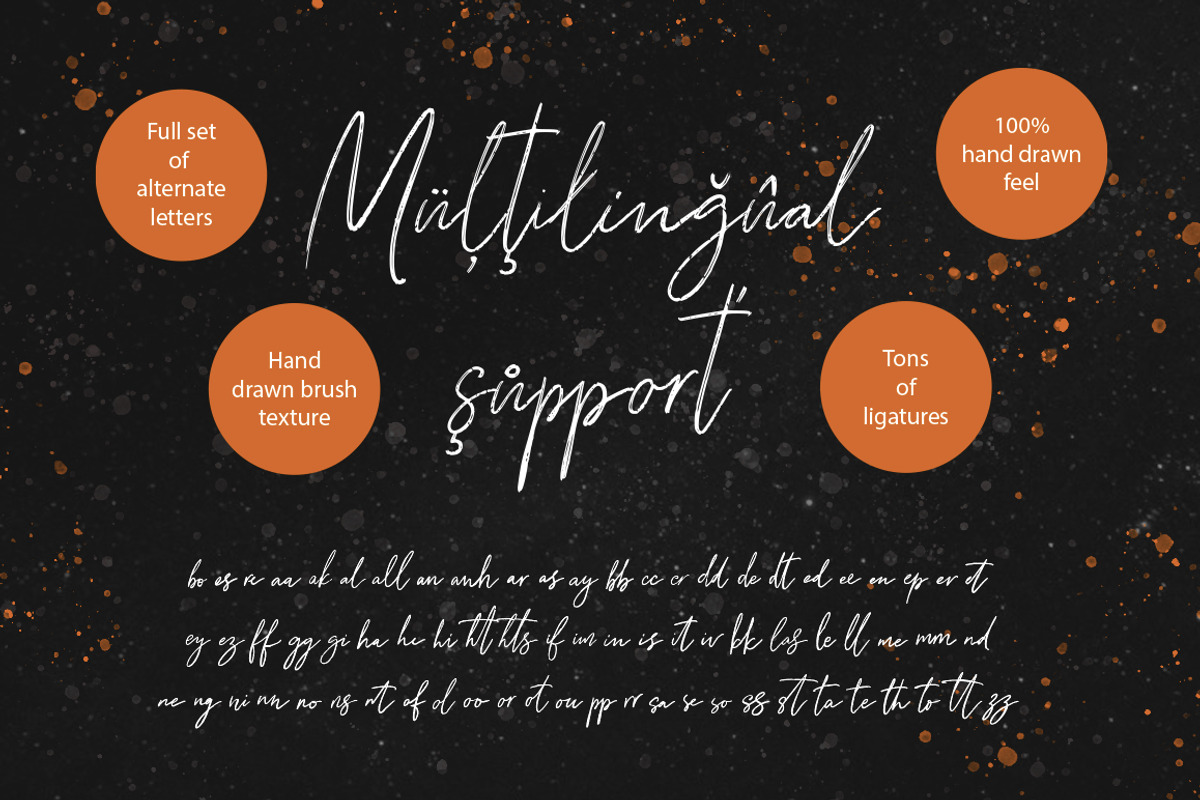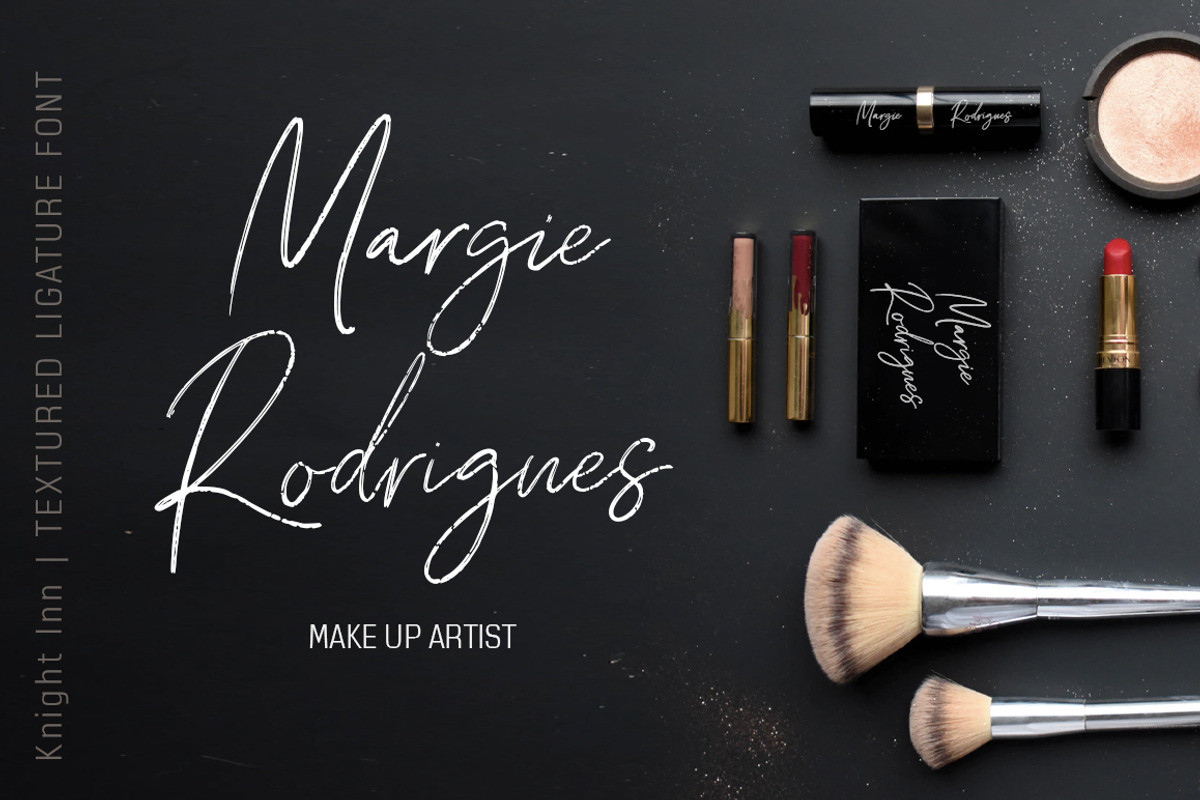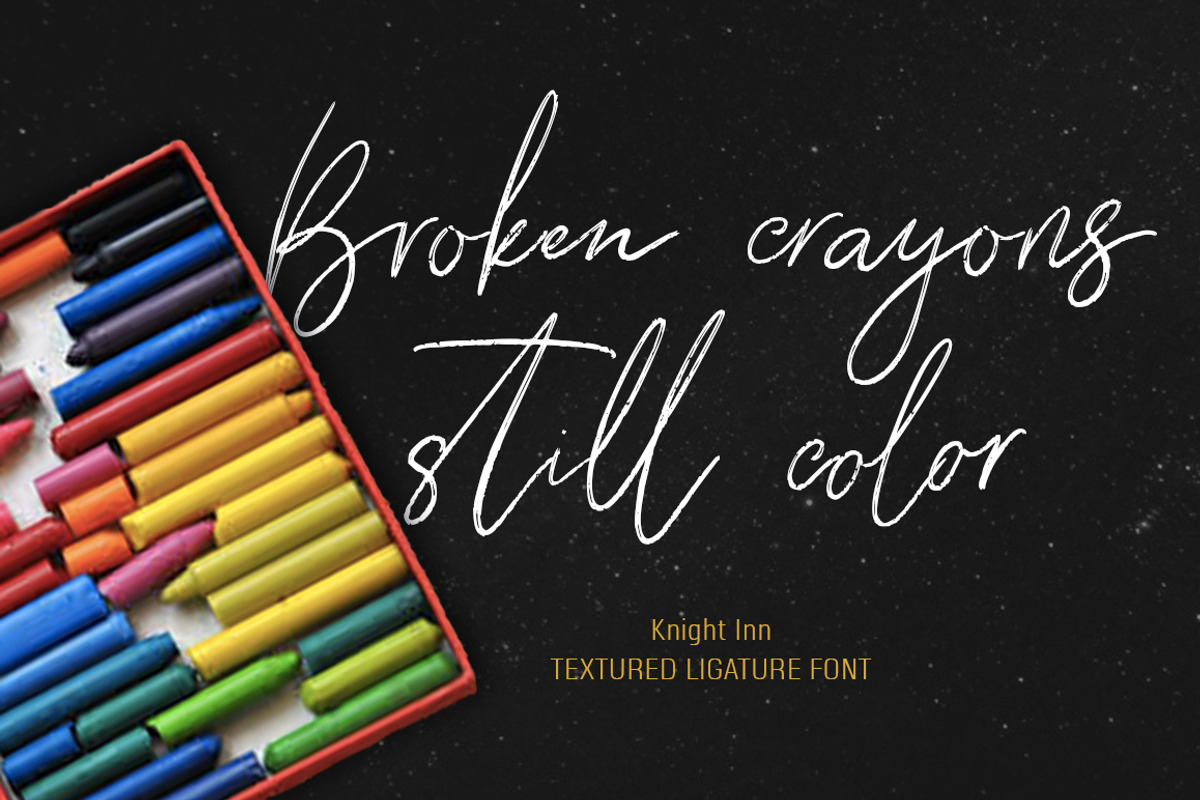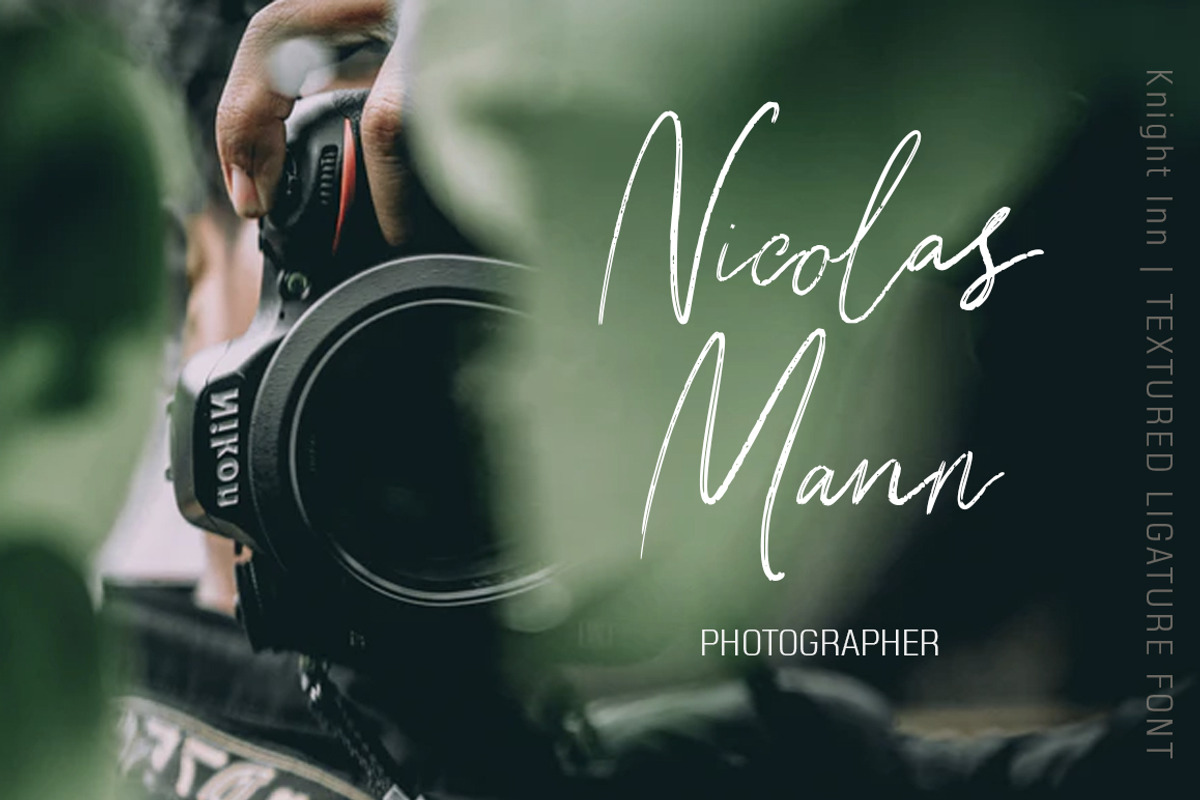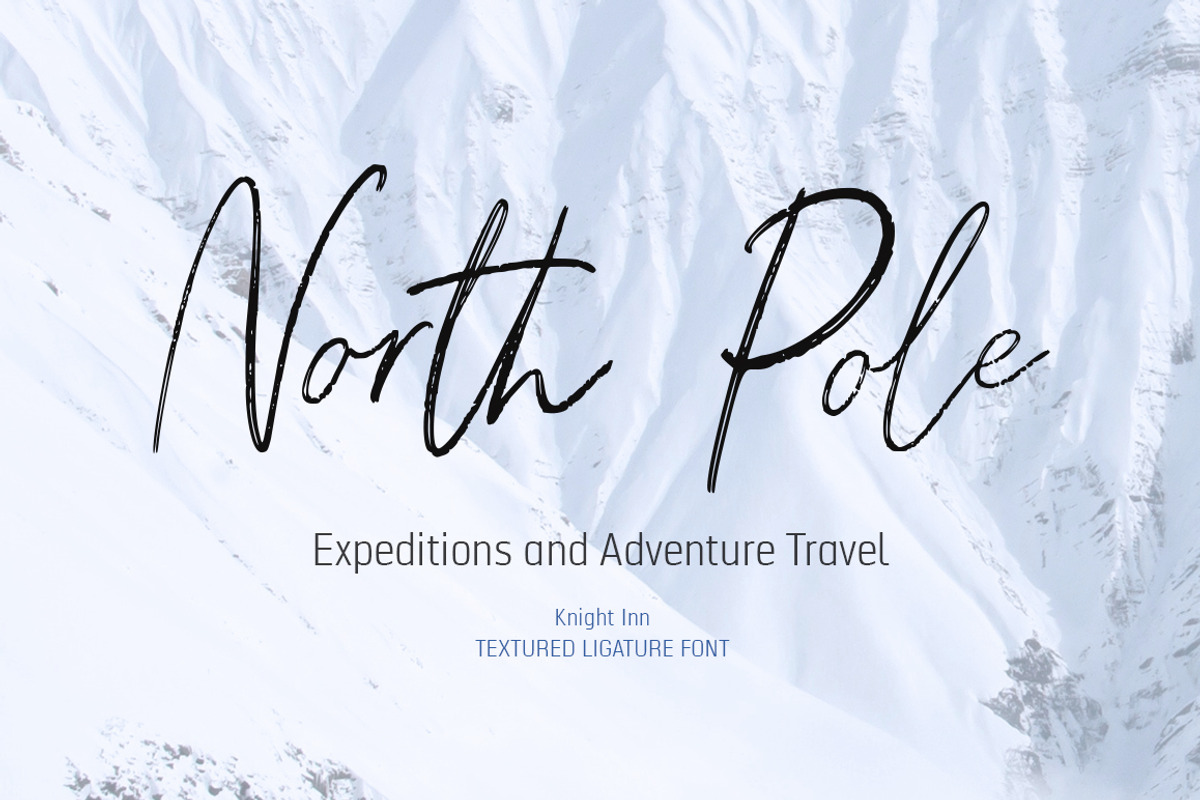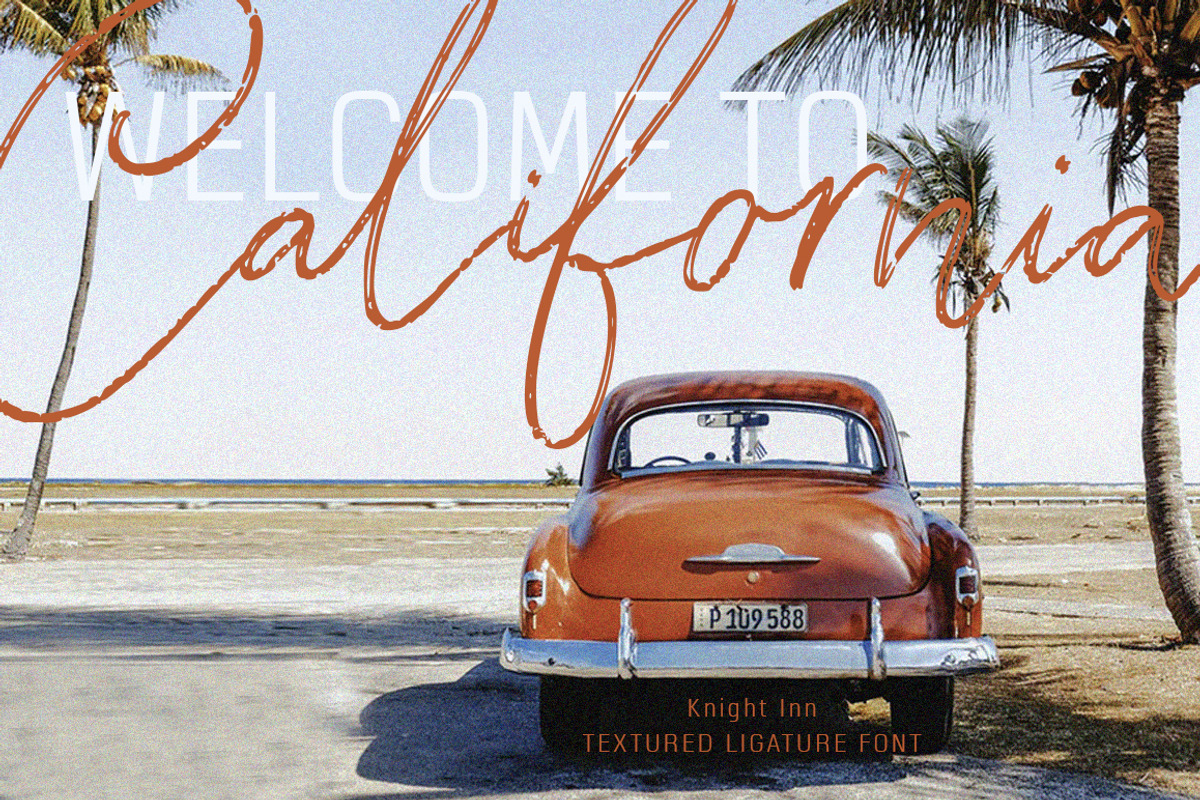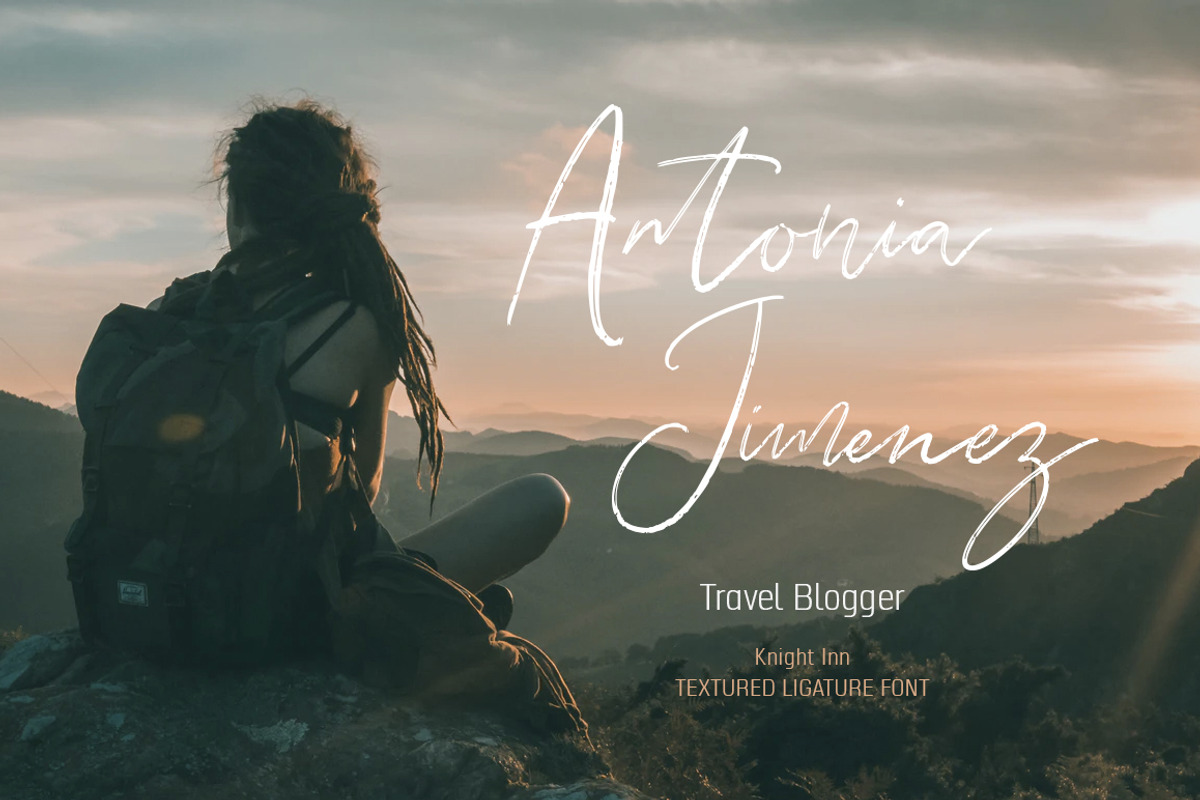
Knights Inn. Textured brush font.
Introducing my hand drawn textured brush font with tons of ligatures & full set of alternate letters – Knights Inn.
Knights Inn is a casual hand drawn font, this font perfect for logo, invitation, stationery, wedding designs, social media posts, advertisements, product packaging, product designs, label, photography, watermark, special events or anything and fonts are provided in TTF & OTF formats.
Fonts included Multi-lingual support. Western European, Central European and South Eastern European languages are included.